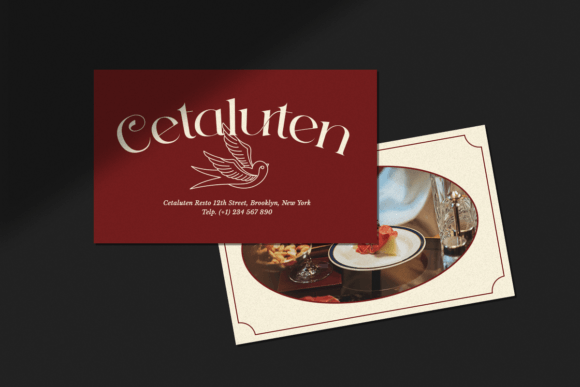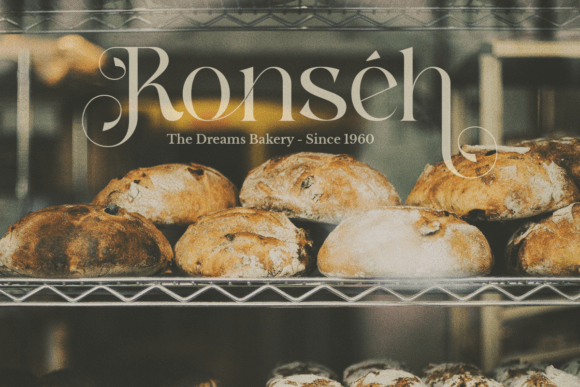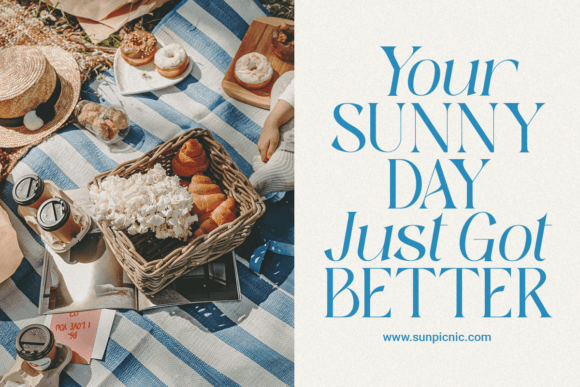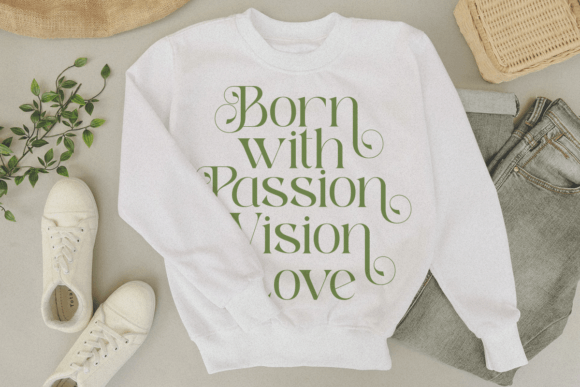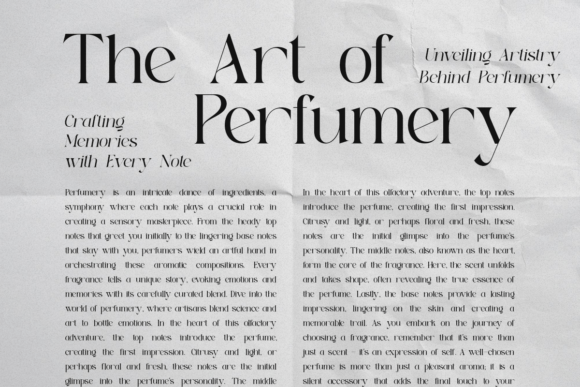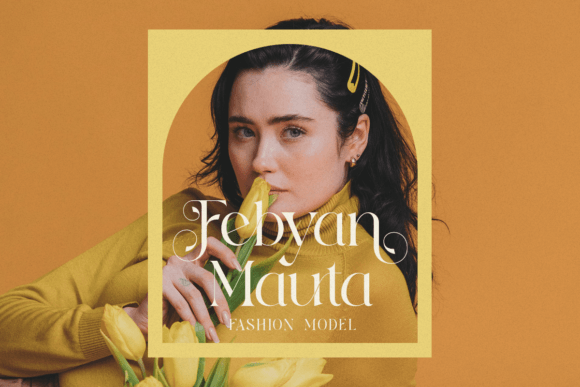
Introduction to Bloom Haven Font
Introducing Bloom Haven, a thin elegant serif font designed to bring a touch of sophistication and uniqueness to your projects.
With its refined serifs and exquisite letterforms, Bloom Haven is perfect for designers looking to elevate their work with a font that embodies elegance and style Bloom Haven features unique alternates and ligatures, providing you with a versatile toolkit to create beautiful and distinctive typography.
Key Features of Bloom Haven Font
Why Choose Bloom Haven Font?